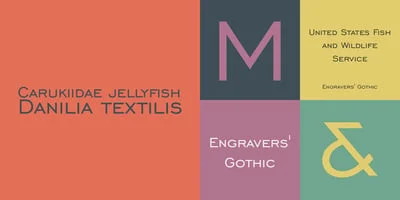
Engravers' Gothic BT Font
The Engravers' Gothic BT Font is a classic and distinguished sans-serif typeface, directly inspired by the meticulously crafted lettering found on engraved plates, particularly those used for financial documents, legal certificates, and formal invitations of the late 19th and early 20th centuries. Imagine its condensed, precise forms lending an air of absolute authority to corporate mastheads, adding an official and trustworthy touch to bank statements, or creating elegant yet impactful titles for professional services websites and printed materials. Its strong, no-nonsense character and excellent legibility, even in challenging environments, make it an ideal choice for high-security printing, formal branding, and any design where gravitas, tradition, and uncompromising clarity are paramount. Engravers' Gothic BT Font delivers with its unwavering quality, ensuring your message is conveyed with supreme confidence and a timeless, established aesthetic.
What makes Engravers' Gothic BT Font so exciting is its unique ability to evoke a sense of tradition, formality, and absolute precision through its distinct visual style. Unlike many modern sans-serifs, it carries the weight and seriousness of engraved metal, making it instantly convey reliability and trustworthiness. In a visual landscape where conveying authority is key, this font stands out with its powerful visual impact and remarkable legibility, even in its condensed forms. It’s more than just a typeface; it’s a design element that can instantly set a formal and esteemed tone for a project, making content feel more credible and impactful. Designers will find it an invaluable asset for crafting visuals that truly resonate with an audience seeking security, professionalism, and a profound sense of gravitas.
The Engravers' Gothic BT Font family is typically structured to offer a range of weights and styles that amplify its formal and condensed appeal. Beyond the primary Engravers' Gothic BT Regular typeface, you might find companion styles such as a more impactful Engravers' Gothic BT Bold for stronger emphasis, or possibly Engravers' Gothic BT Light for a slightly less imposing presence while maintaining its characteristic precision. Given its historical and display roots, the family may also include variations optimized for specific uses, or specialized characters found in formal documentation. These diverse family members provide designers with the flexibility to establish a clear typographic hierarchy and maintain a consistent, authoritative, and traditional aesthetic across all elements of their project, from prominent official titles to detailed fine print.